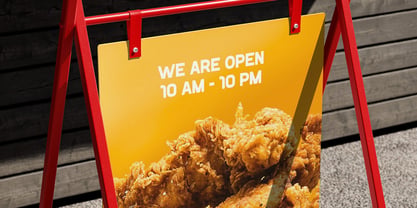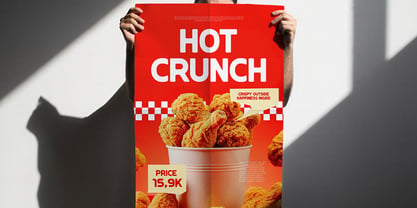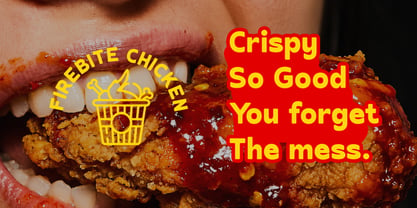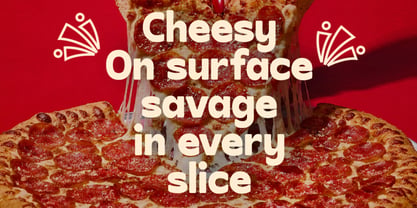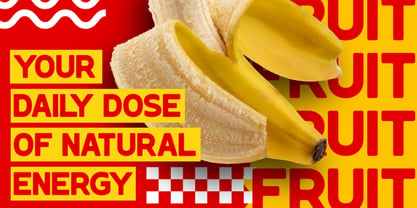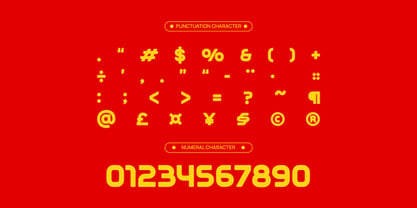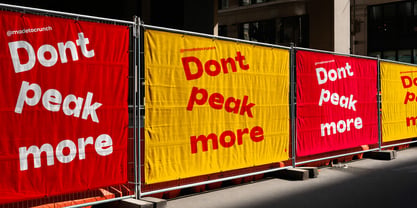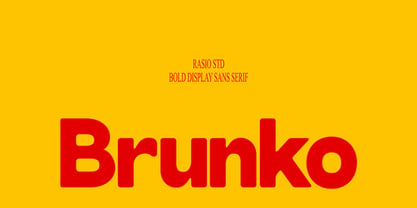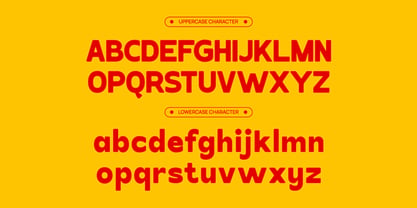
Brunko
by Rasio Studio
The Brunko Font Family was designed by Fajar Indra and published by Rasio Studio. Brunko contains 1 styles. More about this family
Brunko Bold Display Sans Serif is a heavy rounded display typeface with strong geometric construction, playful curves, and impactful letterforms designed for standout visual communication. The font includes uppercase, lowercase, numerals, punctuation, making it versatile for branding and promotional typography.
Relevance & Use Cases is relevant for bold branding projects, restaurant identities, fast food campaigns, poster headlines, product packaging, social media promotions, merchandise, and commercial advertising. Its thick rounded structure and energetic appearance work effectively for youth-oriented branding, snack packaging, sports graphics, festival posters